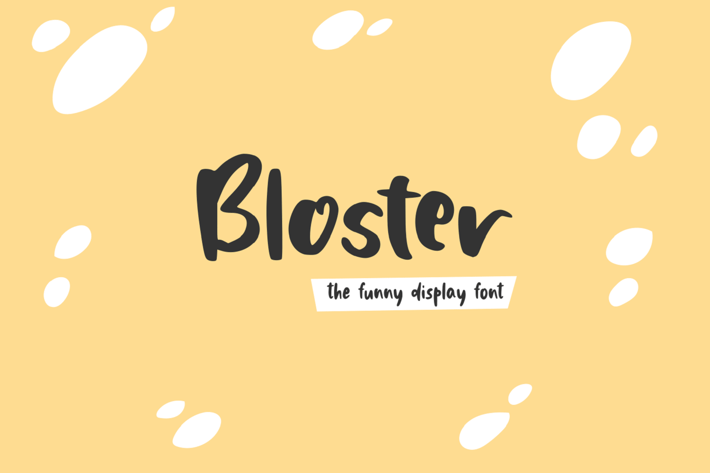
Bloster - The Funny Display Font
Bloster - The Funny Display Font, it’s perfect for logos, name card, magazine layouts, invitations, headers, or even large-scale artwork.